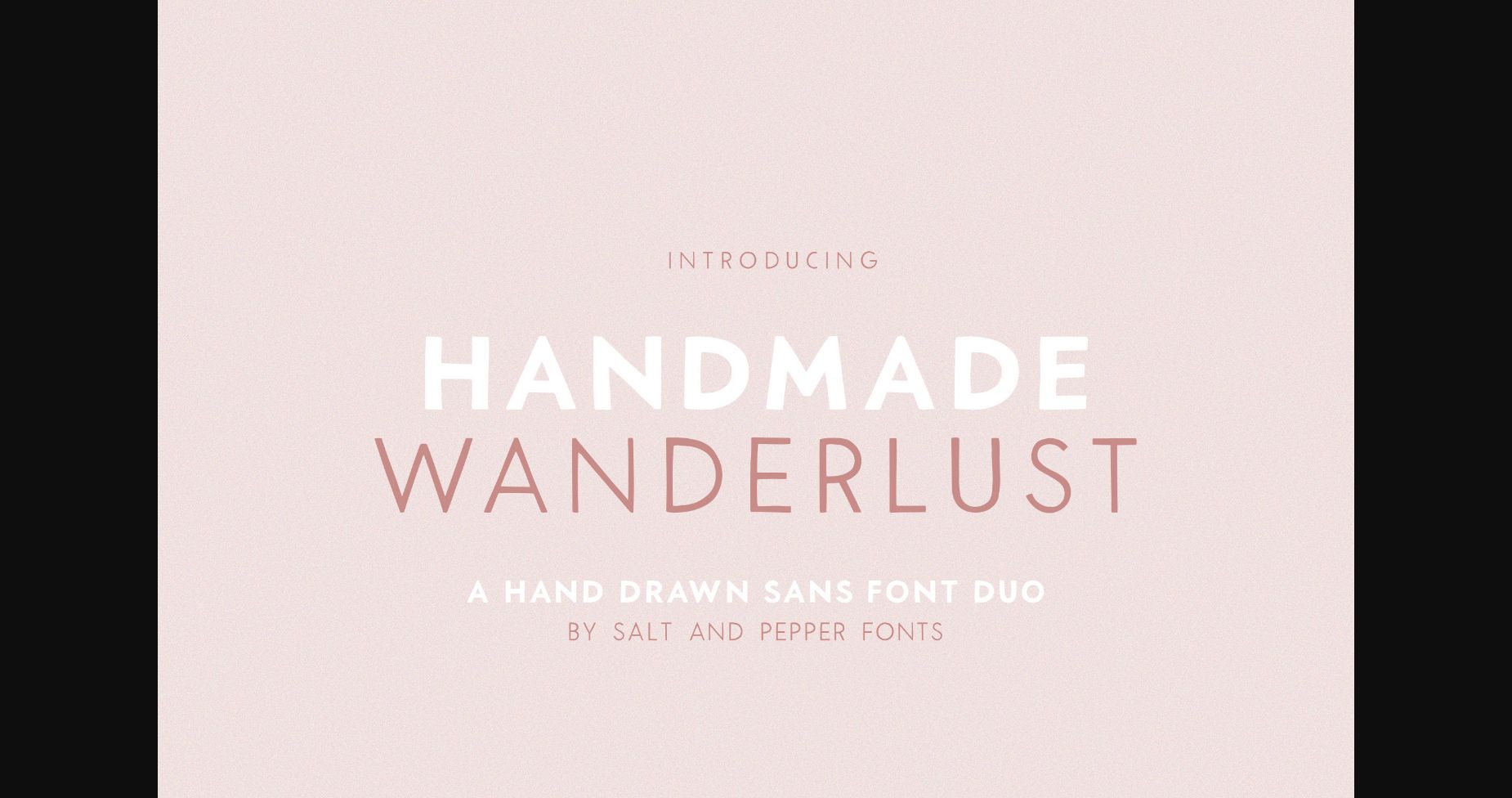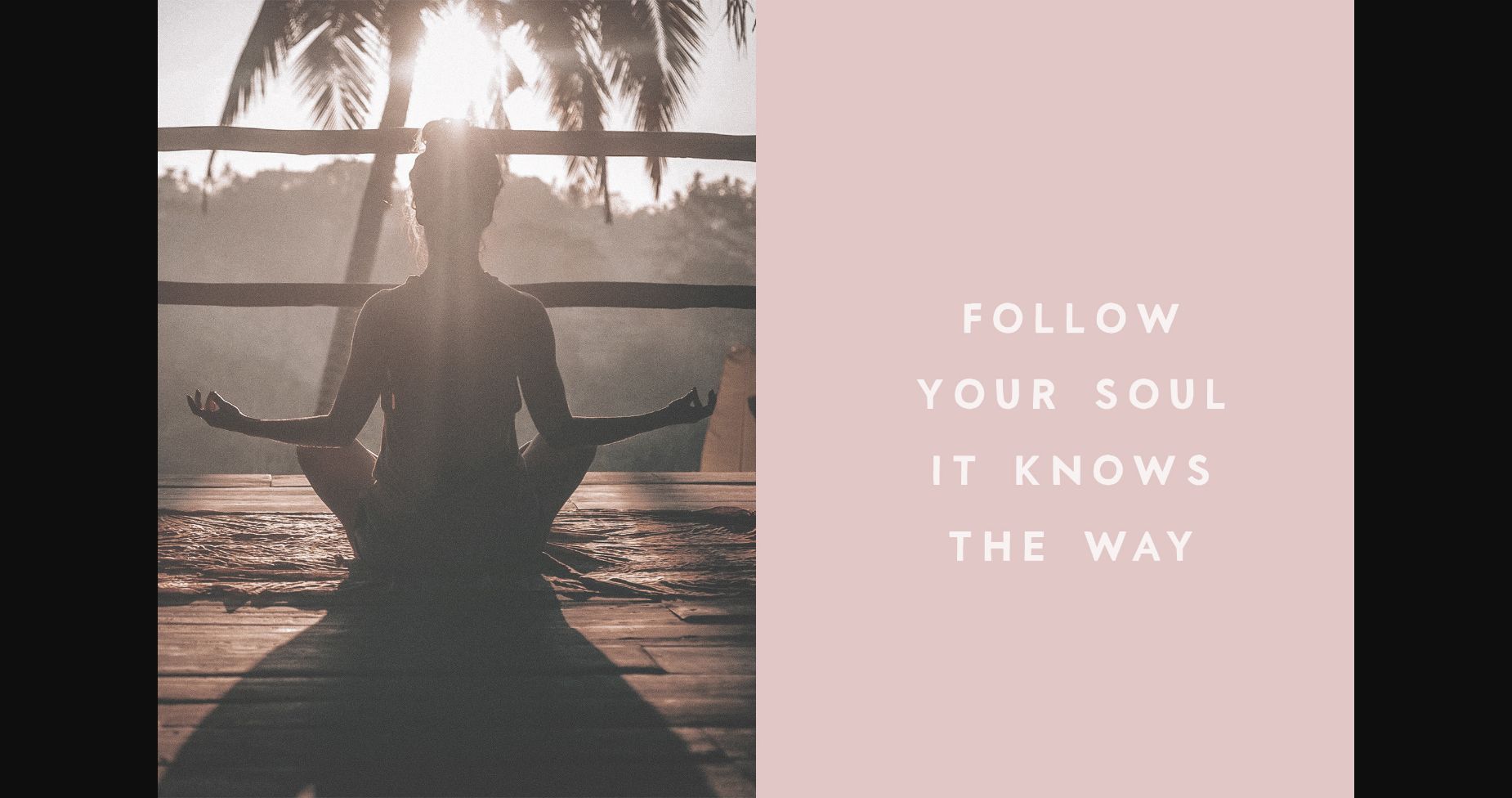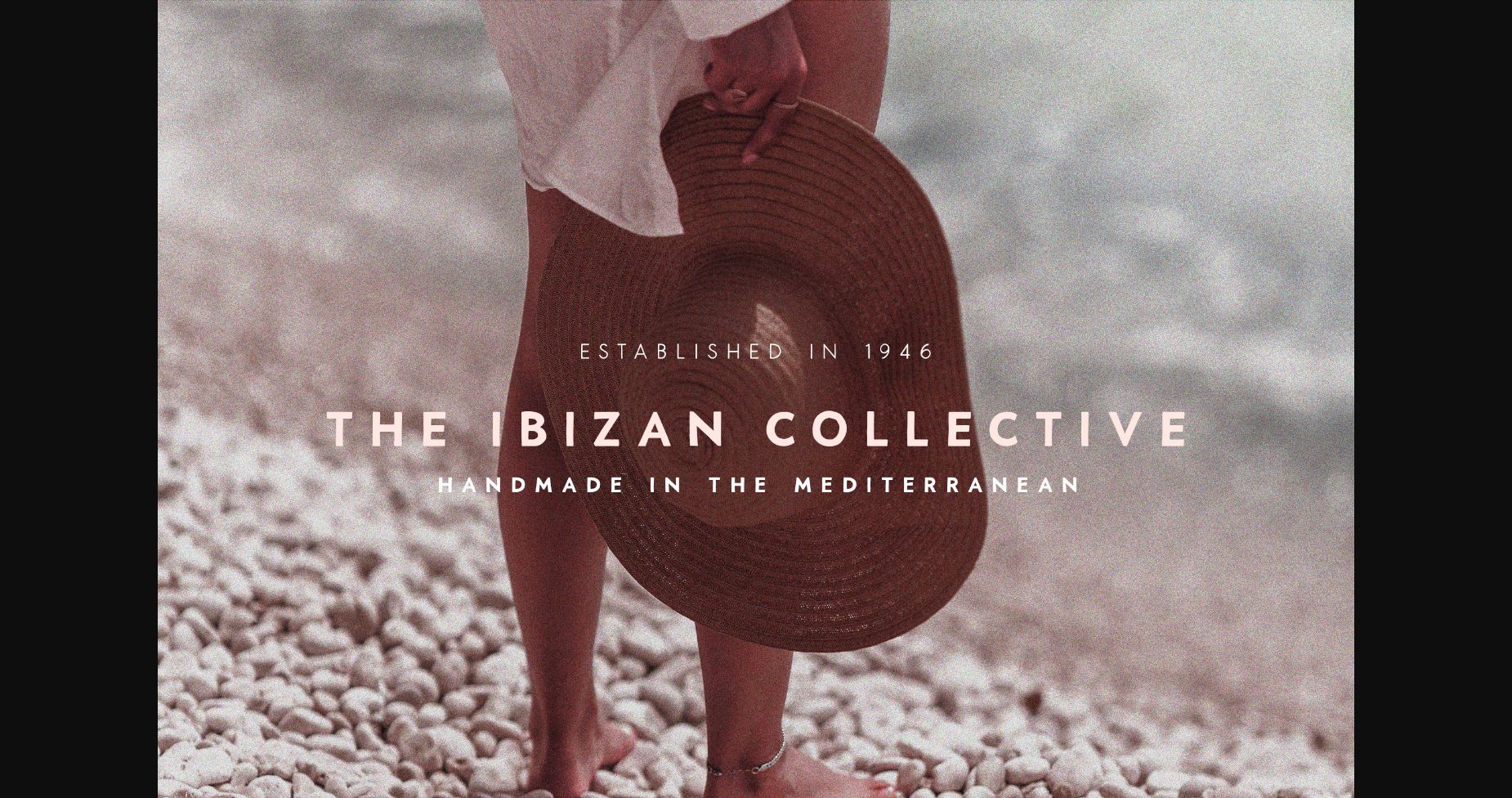
About Handmade Wanderlust Duo Font
Handmade Wanderlust Duo is a lovely duo sans serif font (thick and thin). Whether you use it for cartoon related designs, children games or just any creation that requires a lovely touch, this font will be an amazing choice.